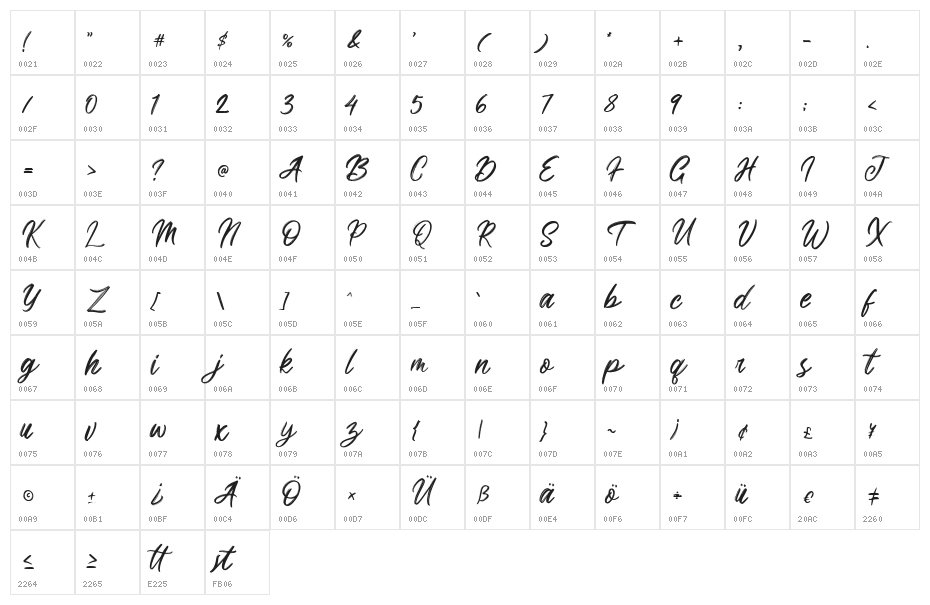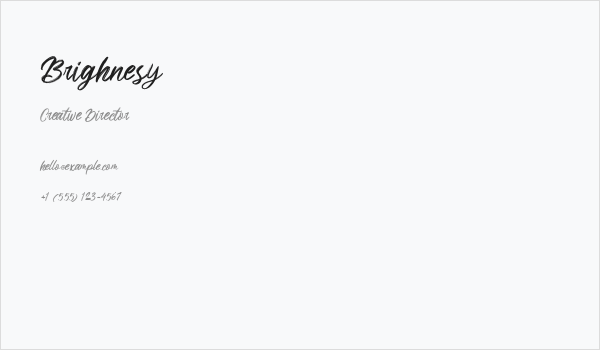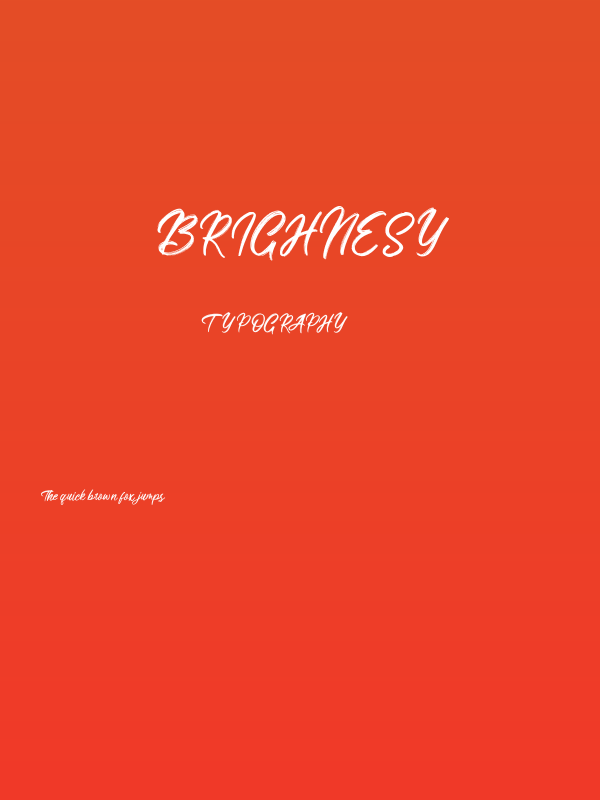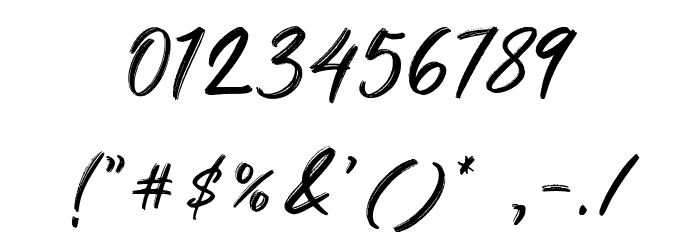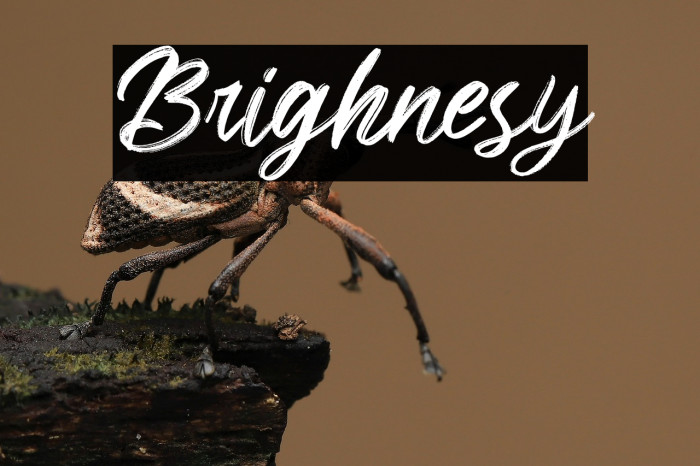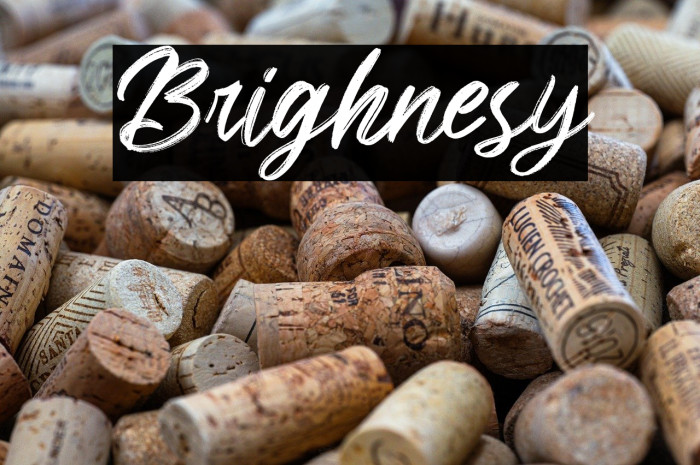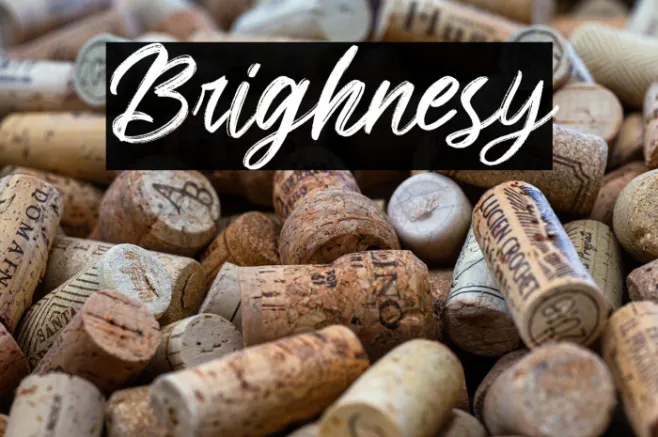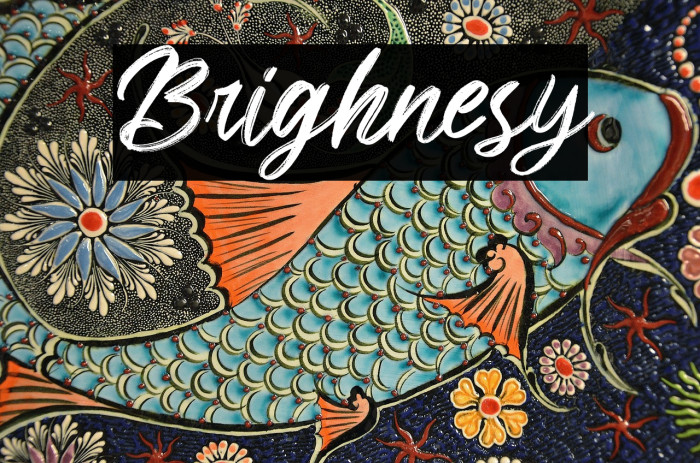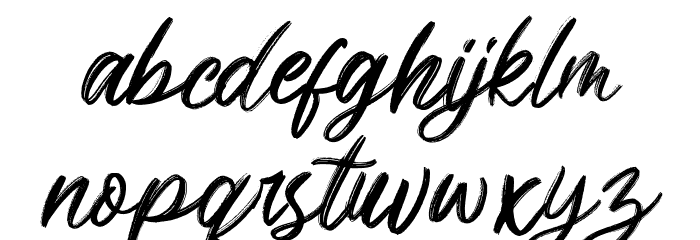
Brighnesy Font
Brighnesy Description
This font exudes a dynamic and energetic feel, characterized by its bold, brush-like strokes that convey a sense of movement and fluidity. The uppercase letters are particularly striking, with their sweeping curves and sharp angles, while the lowercase letters maintain a consistent style that complements the overall design. The numbers and special characters are crafted with the same attention to detail, ensuring a cohesive look across all elements. This font's handwritten style is both modern and artistic, making it suitable for a variety of creative applications.
| Overall Style | Modern, Artistic |
| Proposed Projects | Ideal for branding projects, logo design, invitations, and artistic posters. |